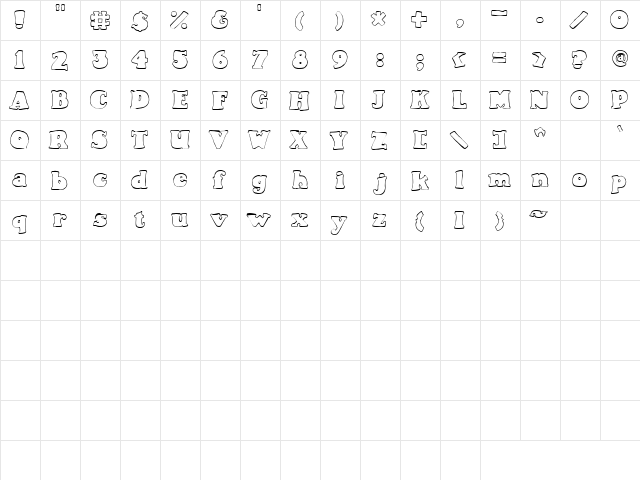
KF FunFont Regular Font Preview
KF FunFont Regular
KF FunFont Regular Font Details
Design Context for KF FunFont Typeface
KF FunFont has an approachable, lighthearted character — its loose, expressive forms are well-suited to children's content, casual branding, and fun-first design.
Font Pairing: Pairs well with a rounded or humanist sans for body copy, maintaining the friendly tone without relying on KF FunFont to carry extended reading.
Pro Tip: Use KF FunFont at larger display sizes where its expressive character can land. Pair with a clean, simple sans for body copy to maintain readability.